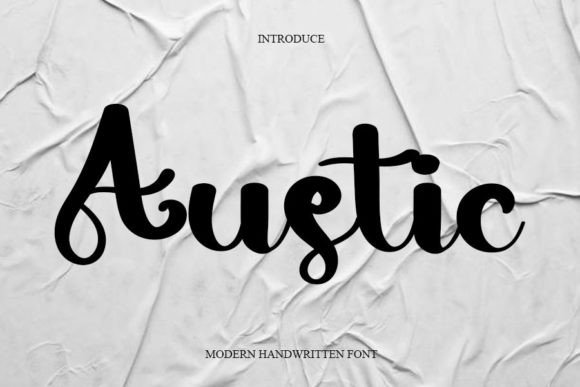
Austic Font
Austic Font is a magical handwritten font that will add a touch of elegance to your projects. It's perfect for logos, branding, social media, and crafty DIY projects.
With its clean and quirky style, Austic Font is sure to make your projects stand out. It's the perfect font for adding a personal touch to your work.
* It's a beautiful and unique font that will make your projects stand out.
* It's perfect for a wide range of projects, including logos, branding, social media, and DIY projects.